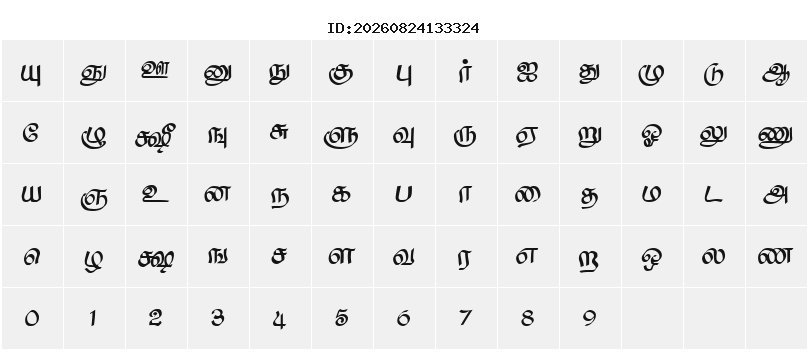
Saavaeri Preview
• Font Name: Saavaeri
• Font ID: Altsys Fontographer 3.5 Saavaeri Regular
• Full Font Name: Saavaeri Regular
• Version: Altsys Fontographer 3.5 24/5/95
• PostScript Name: Saavaeri Regular
• Character Count: 138
About Saavaeri.ttf
Saavaeri.ttf is a modern, elegant sans-serif font designed for ultimate readability and visual harmony. Perfect for branding, headlines, web design, and print materials.